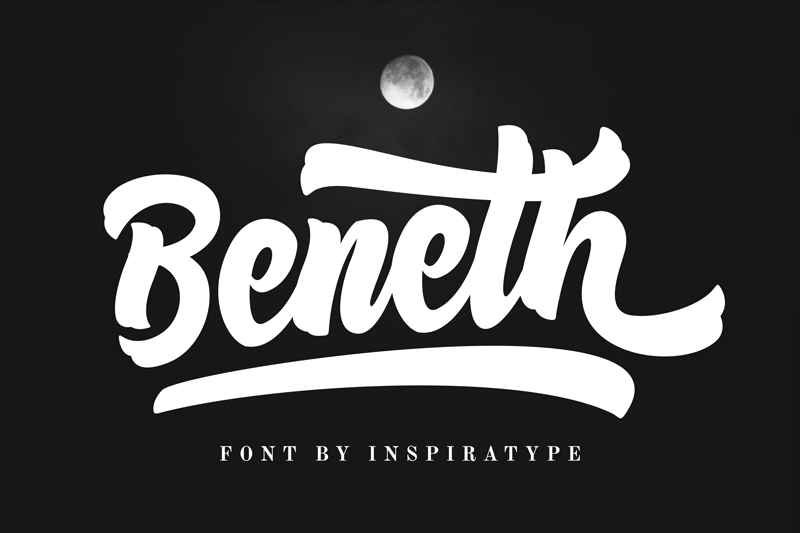
Preview and download Beneth Font. Created by Inspira Sign in Script Various styles with Free for personal use license.
"Beneth" is a font display is made by hand, inspired by classic posters. comes with uppercase, lowercase, numerals, punctuations and so many variations on each character include OpenType alternates, common ligatures and also additional swash to let you customize your designs. Perfect to use for Logotype, Letterhead, Poster, Apparel Design, Label and etc. THIS IS DEMO VERSION. Support us with buy commercial use license! For Commercial Use, grab it fast on this link https://creativemarket.com/Inspiratype/4002731-Beneth-Script-Font check my another font on this https://creativemarket.com/Inspiratype Any question, drop me email to inspiratype@gmail.com (https://creativemarket.com/Inspiratype) Thanks |